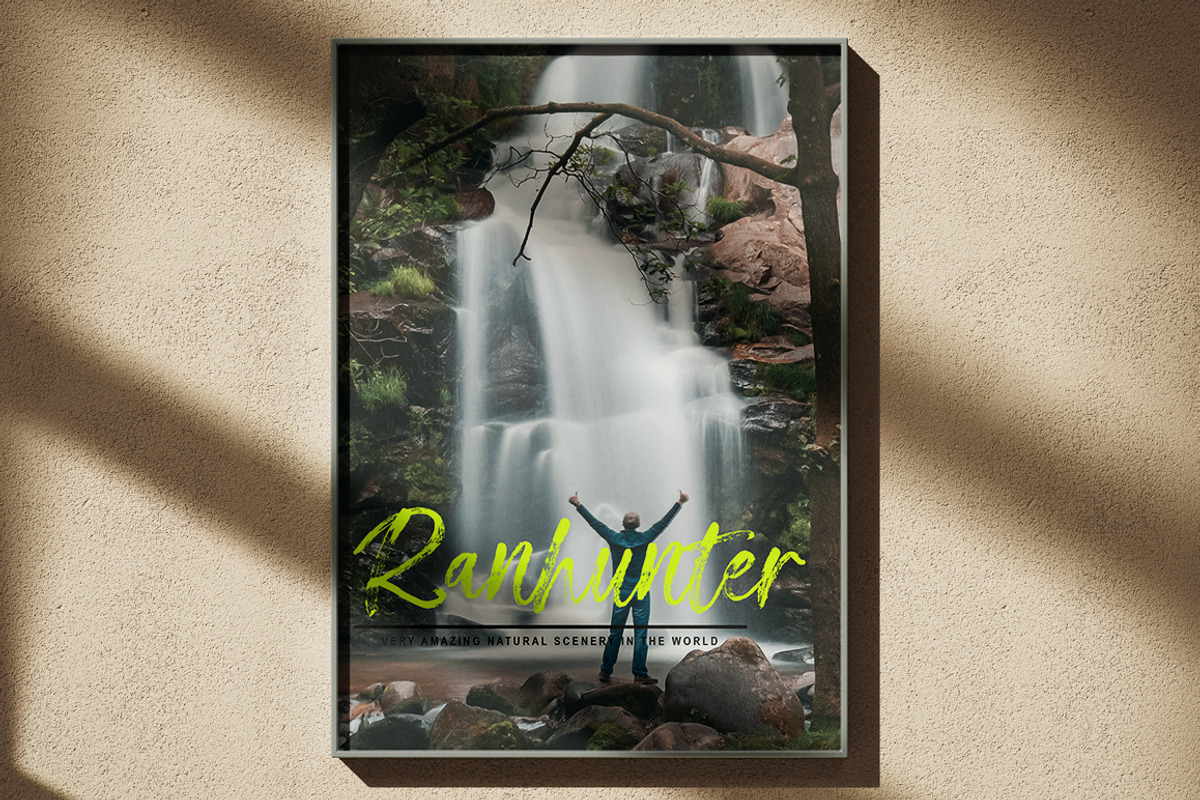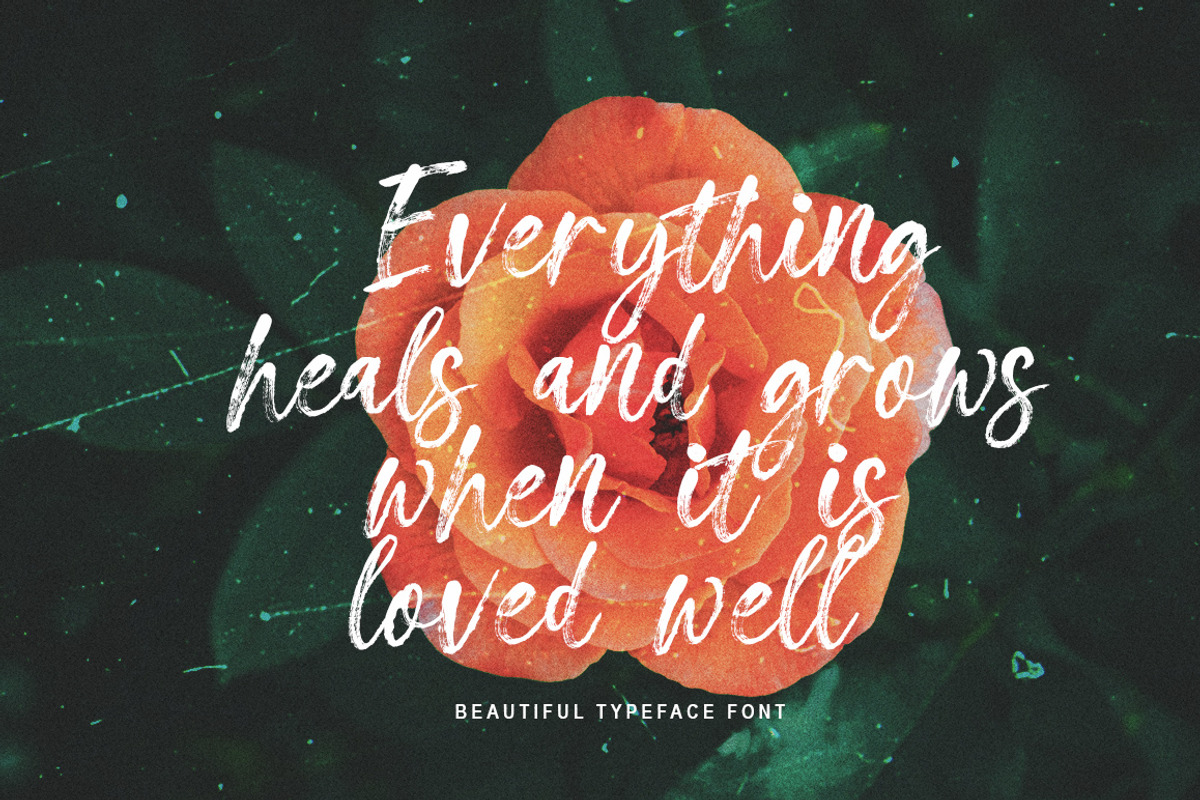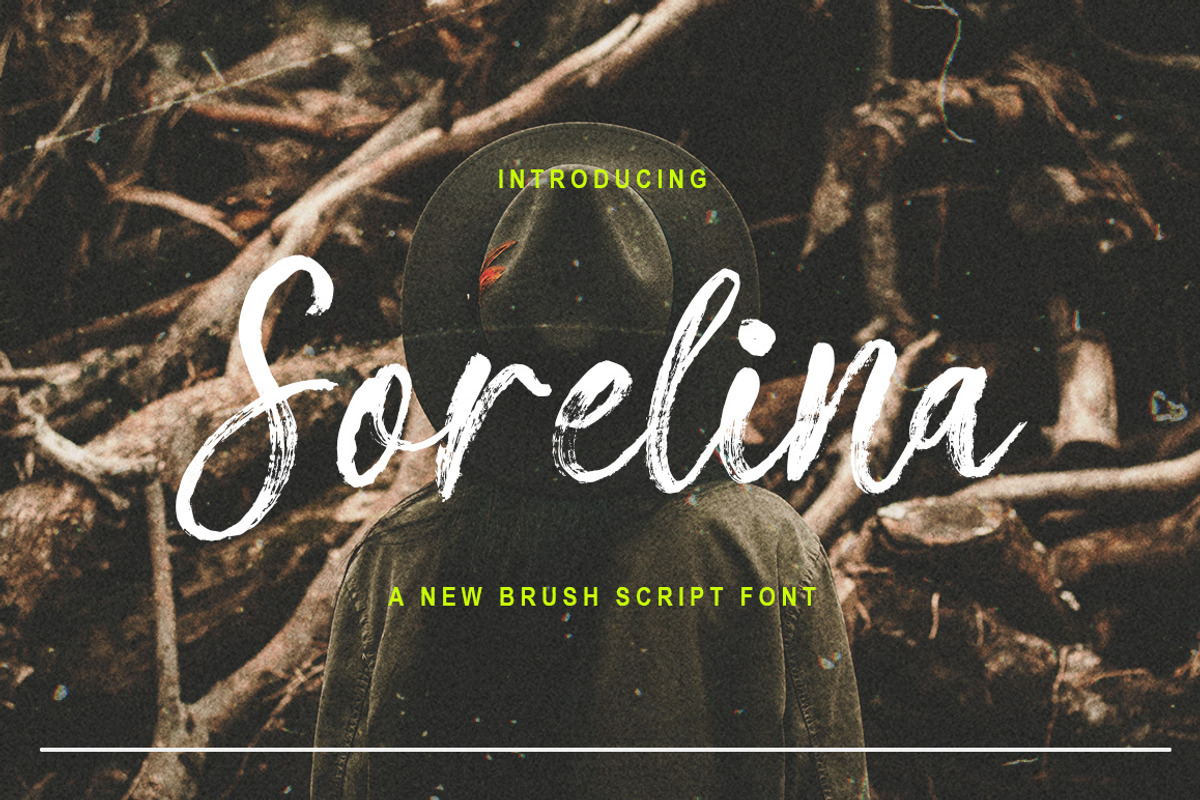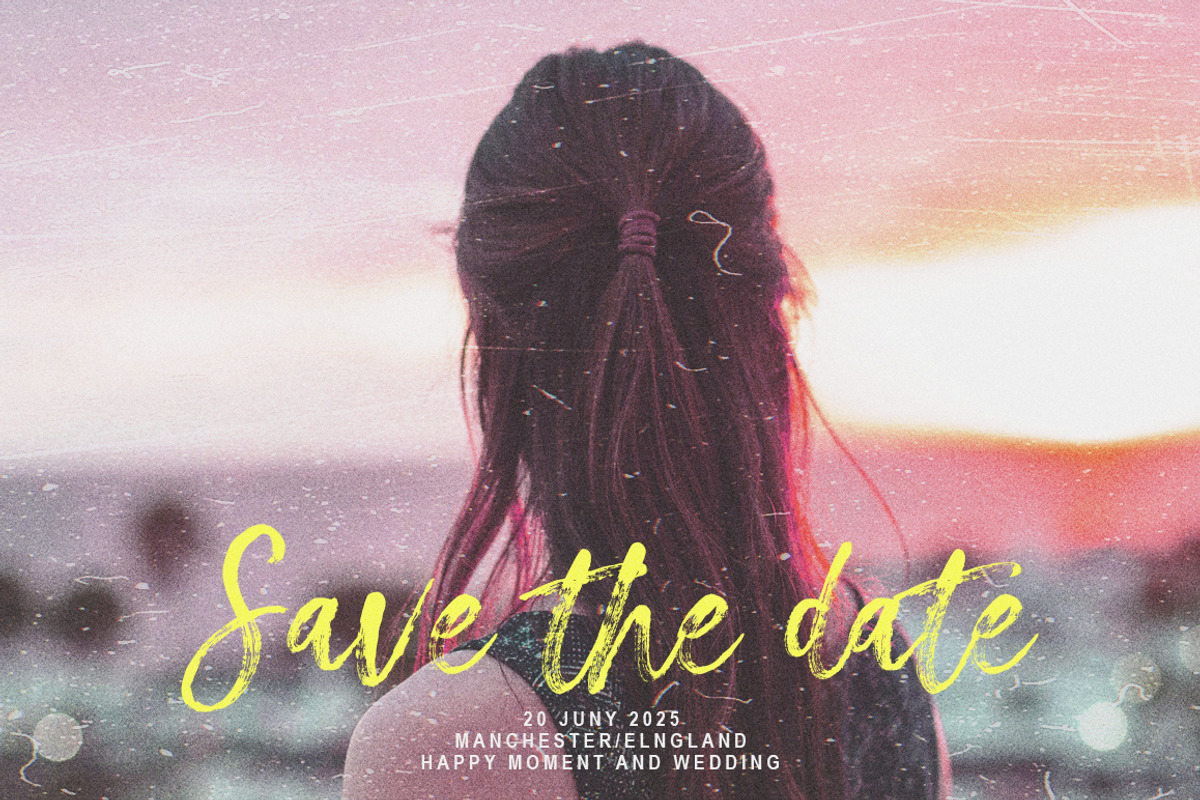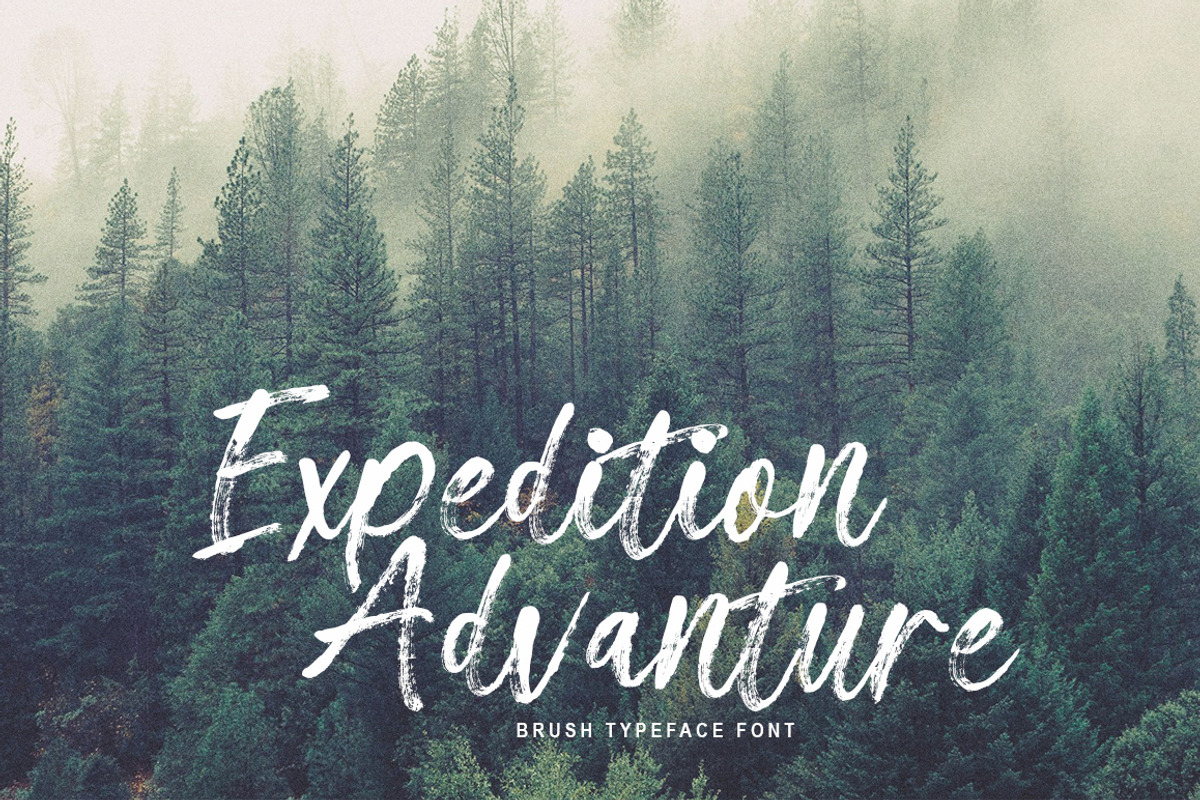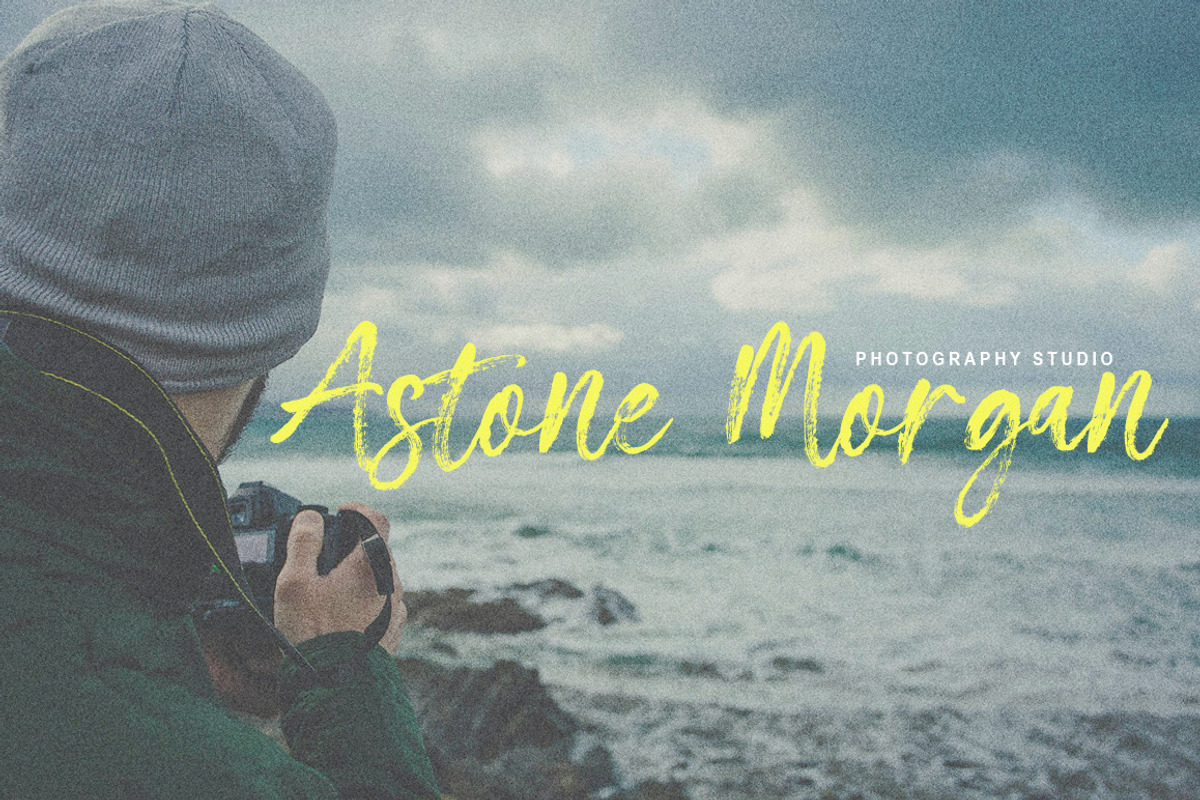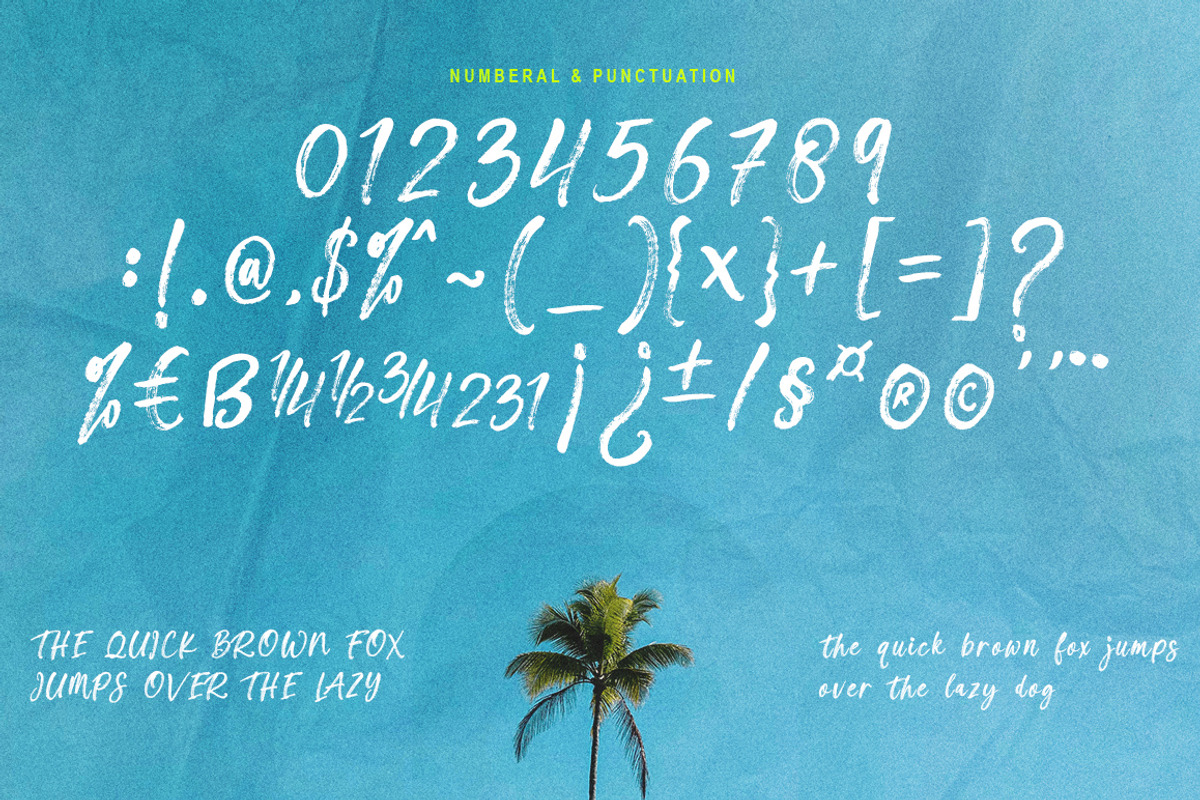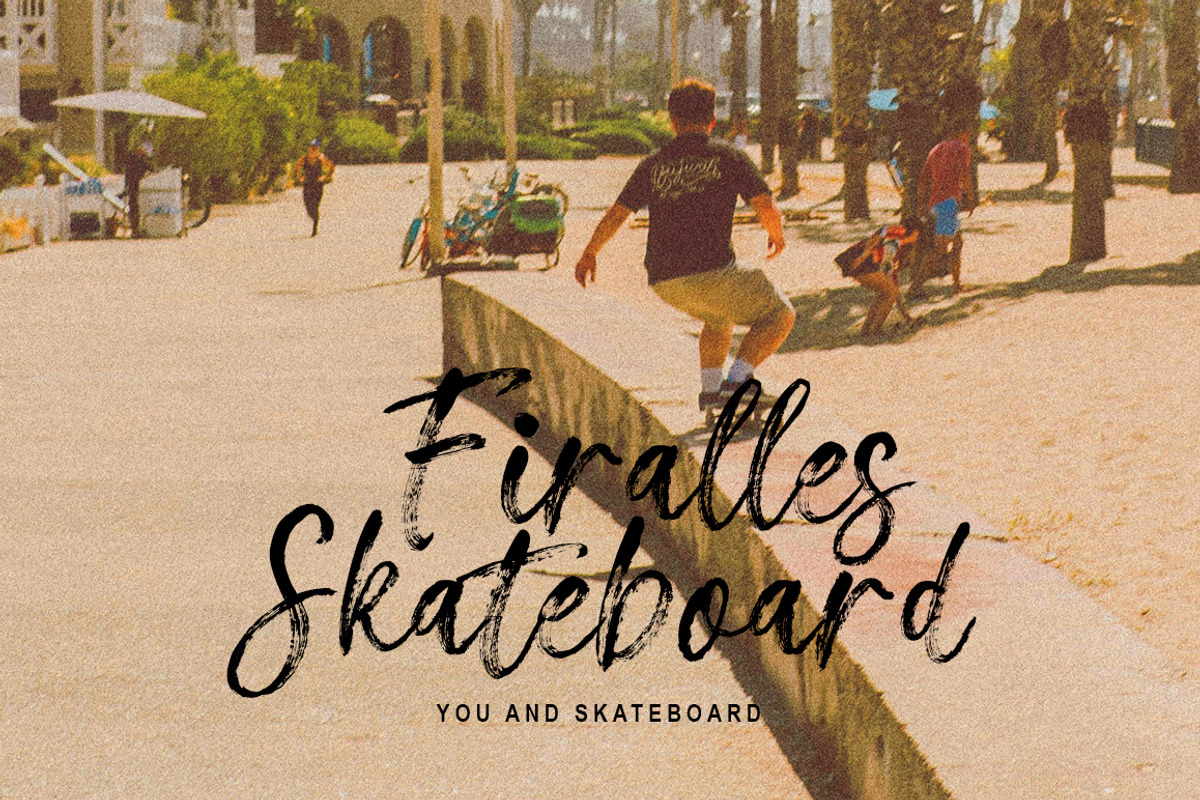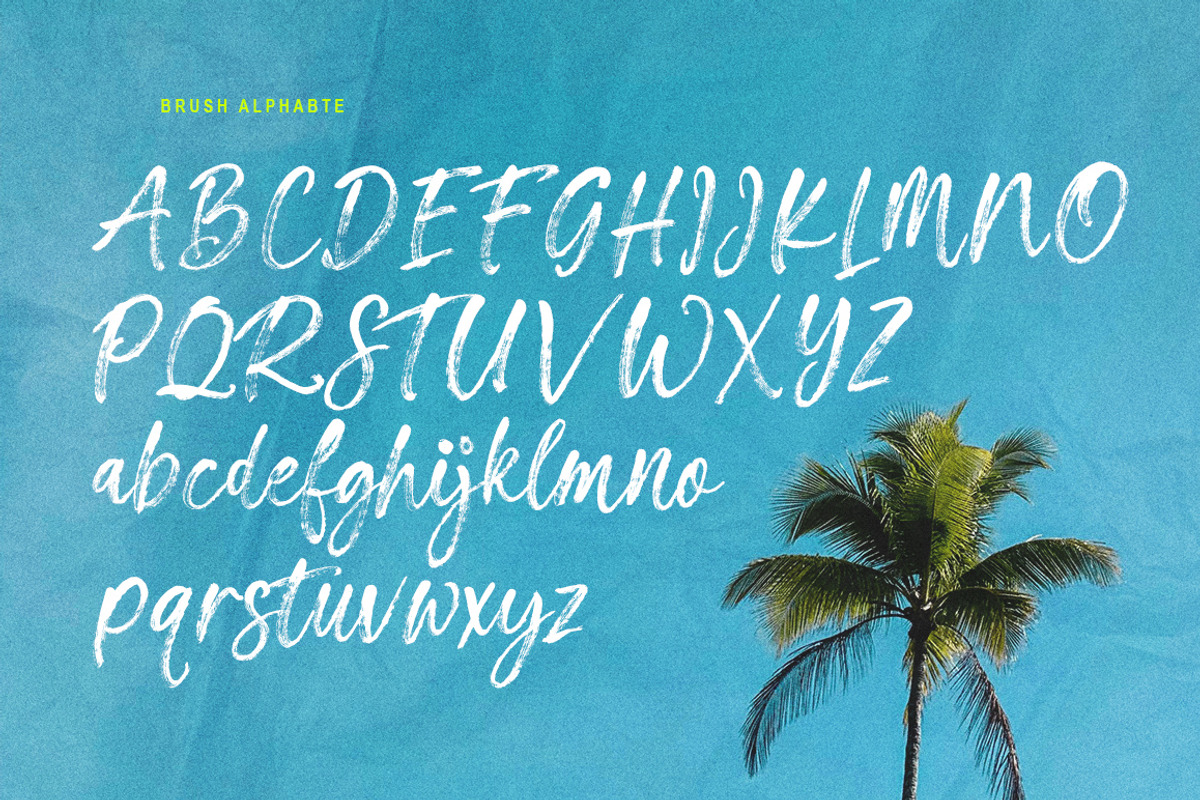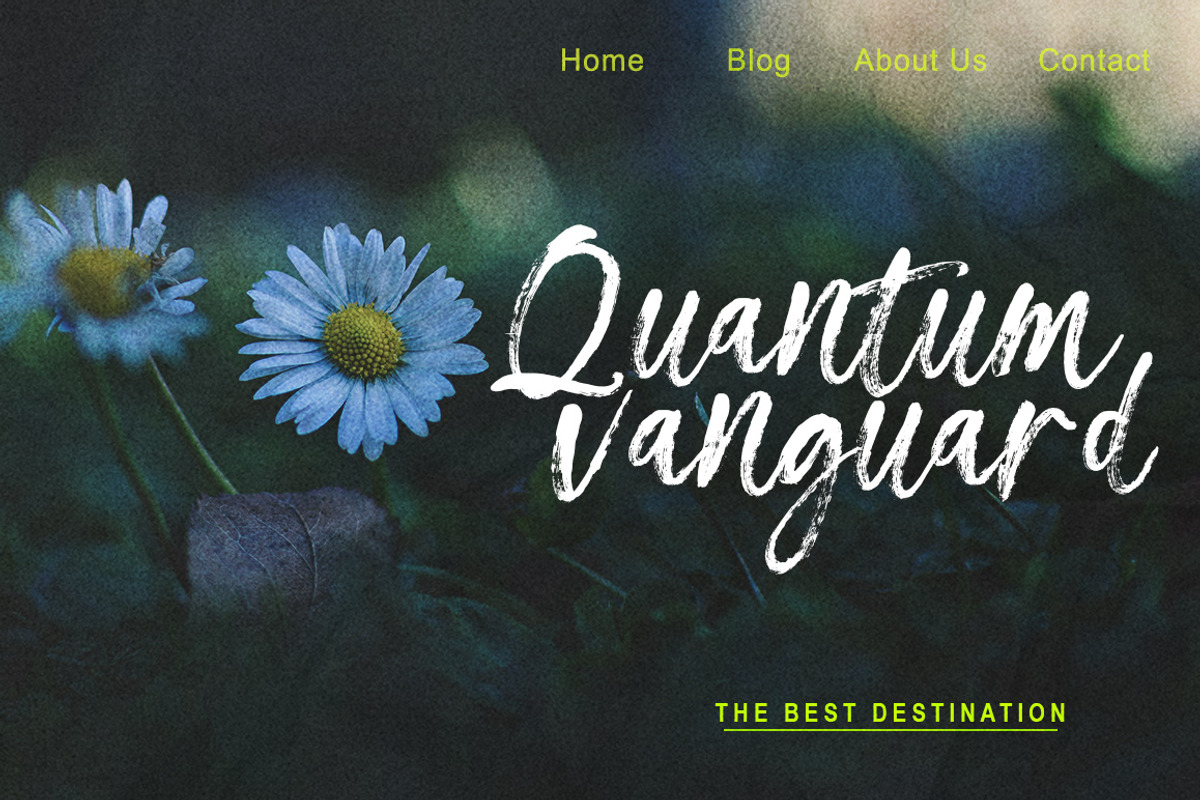
Sorelina
The Sorelina font is a brush-style typeface characterized by smooth, elegant, and slightly messy handwritten letters. The letters appear as if drawn with a soft-tipped brush, creating an artistic and natural look. The strokes of the letters tend to be thick with dynamic thin variations, adding a modern and personal touch.
This font is often used for design projects such as invitations, logos, or branding that require a creative yet elegant feel.